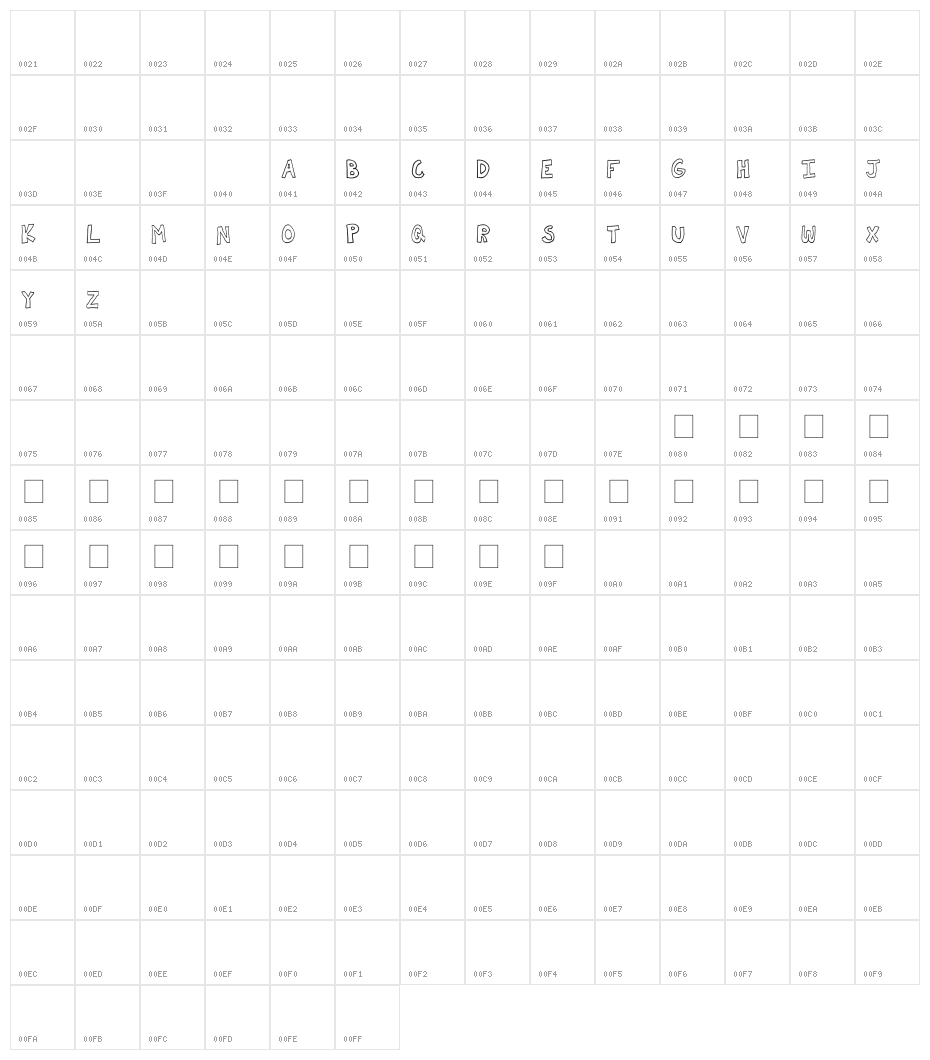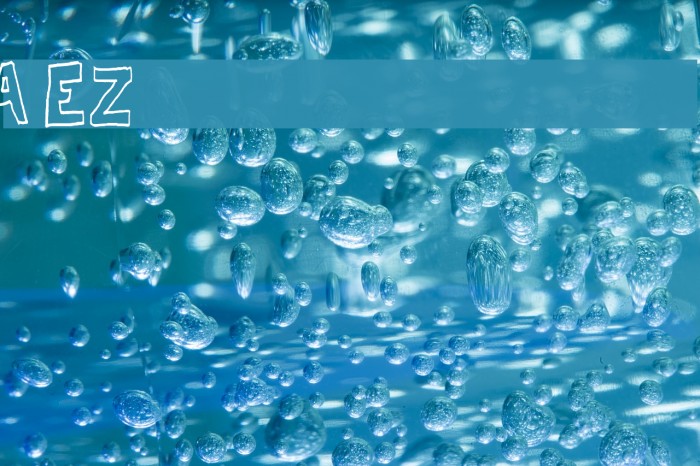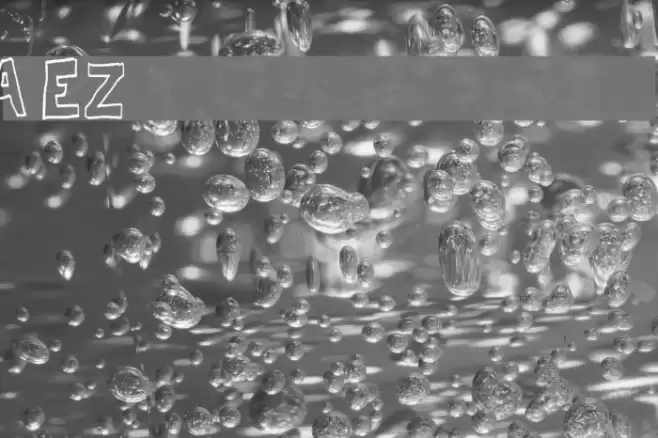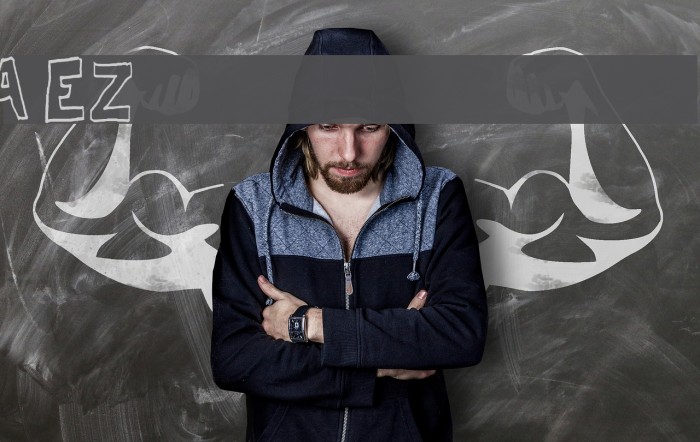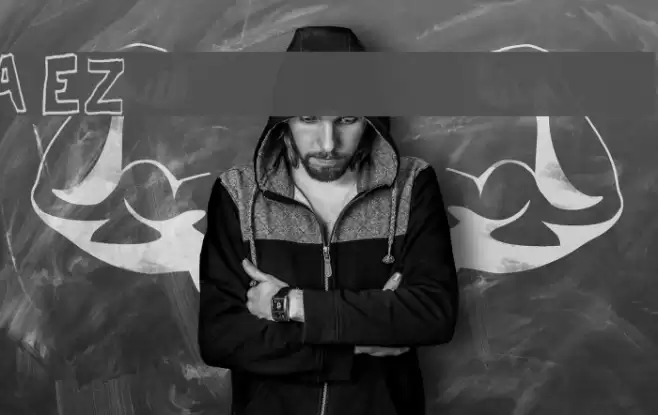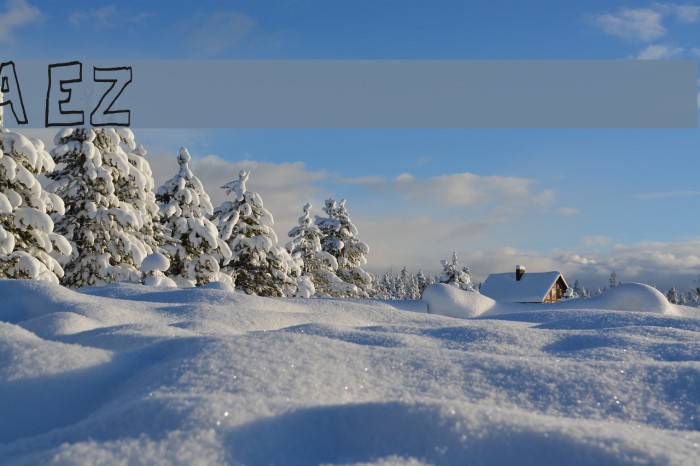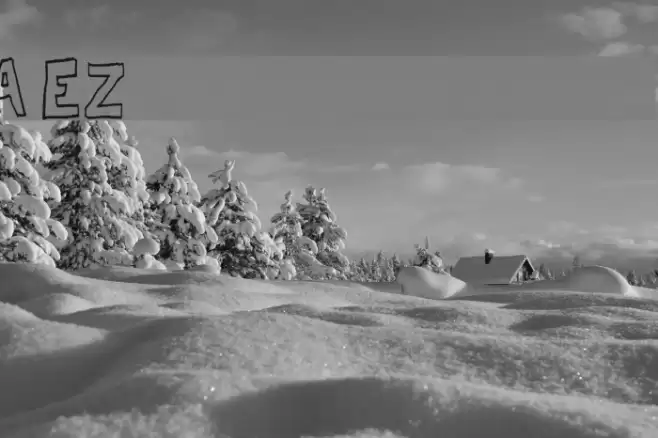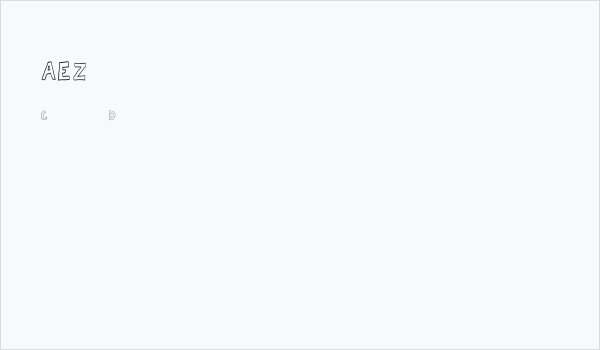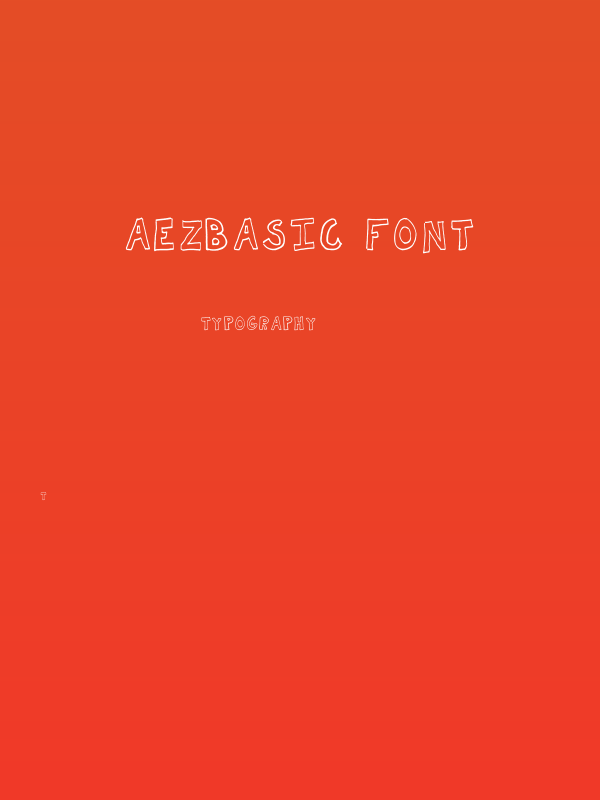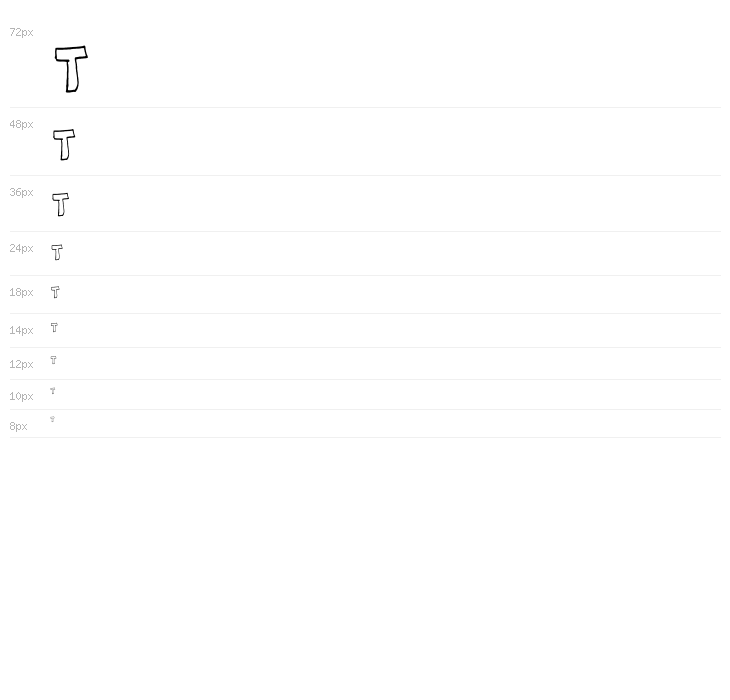
AEZbasic font Font
AEZbasic font Description
This playful and whimsical font features bold, hand-drawn characters with a slightly irregular and sketchy appearance. The uppercase letters are prominently displayed with a casual, artistic flair, making each character unique and full of personality. The font's uneven lines and varied stroke widths give it a dynamic and lively feel, perfect for creative and informal projects. Its distinctive style is reminiscent of doodles or children's handwriting, adding a touch of fun and creativity to any design.